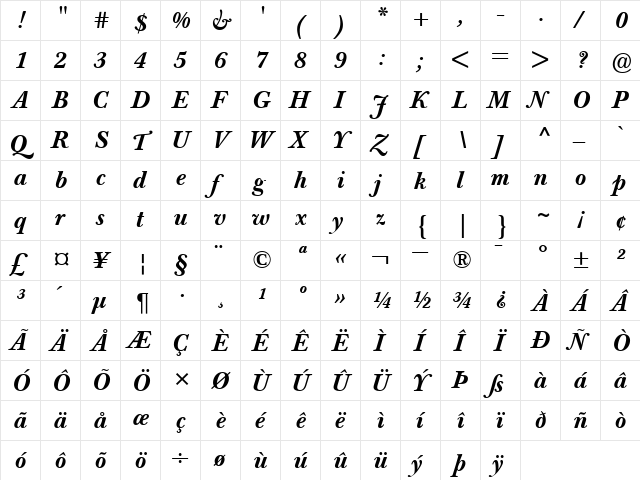
BertholdBaskervilleMedium-Book BookItalic
Design Context for BertholdBaskervilleMedium-Book Typeface
BertholdBaskervilleMedium-Book takes a measured approach to typography — its balanced proportions and neutral character make it a reliable workhorse for both digital and print work. The dynamic lean of this cut emphasises speed and emphasis in any layout.
Pro Tip: Try BertholdBaskervilleMedium-Book for annotation and caption copy alongside an upright companion — the contrast in angle creates a dynamic but ordered typographic system.